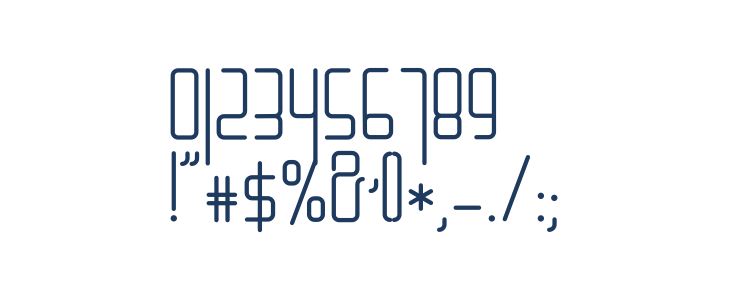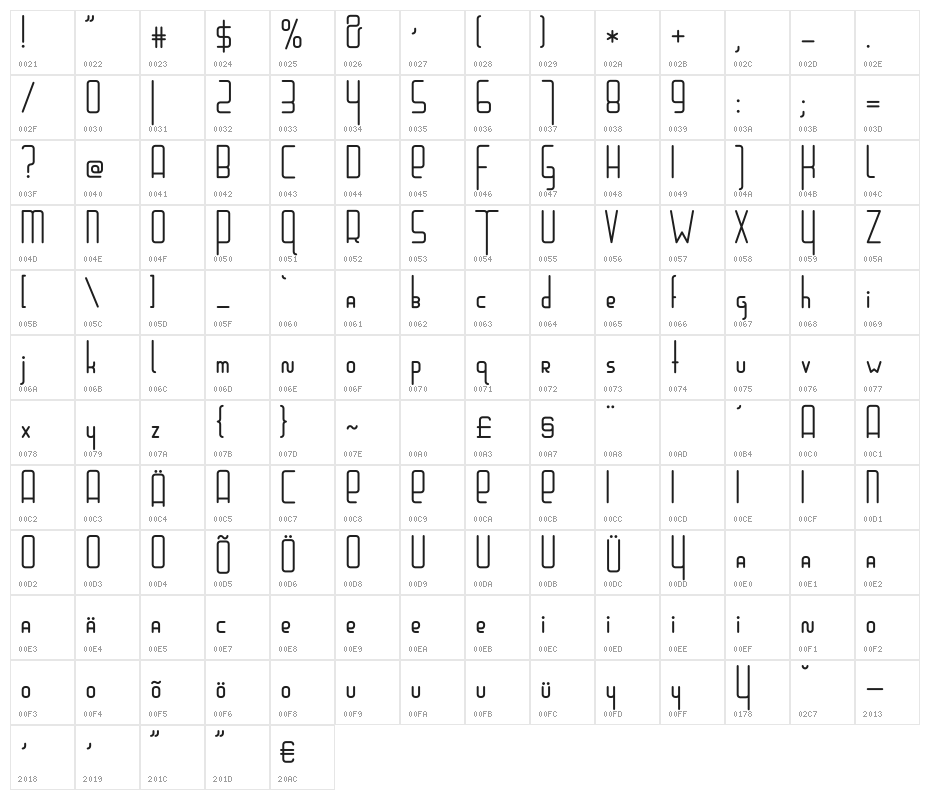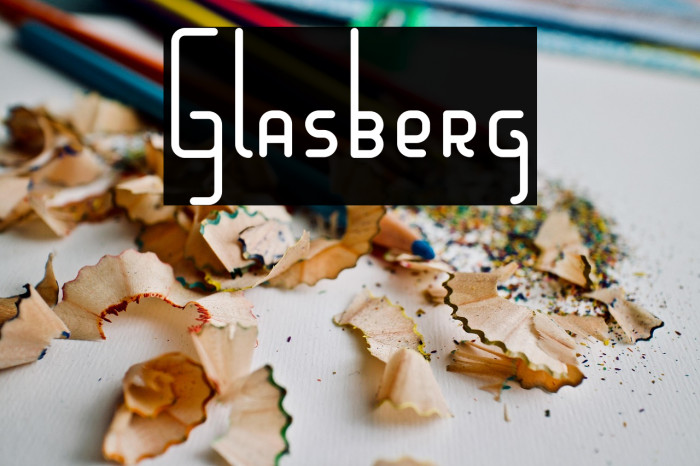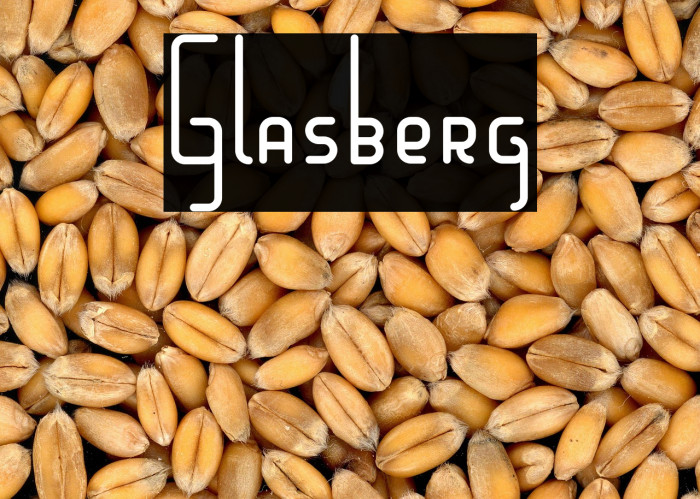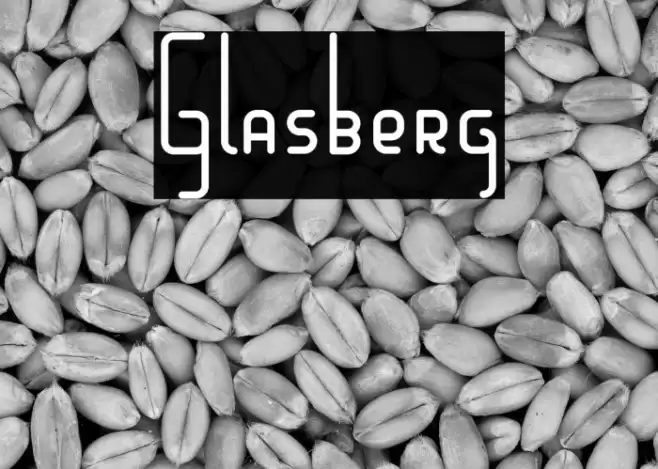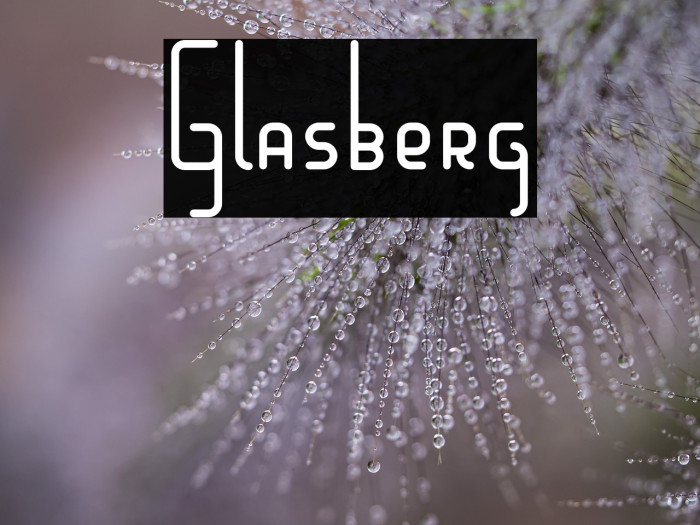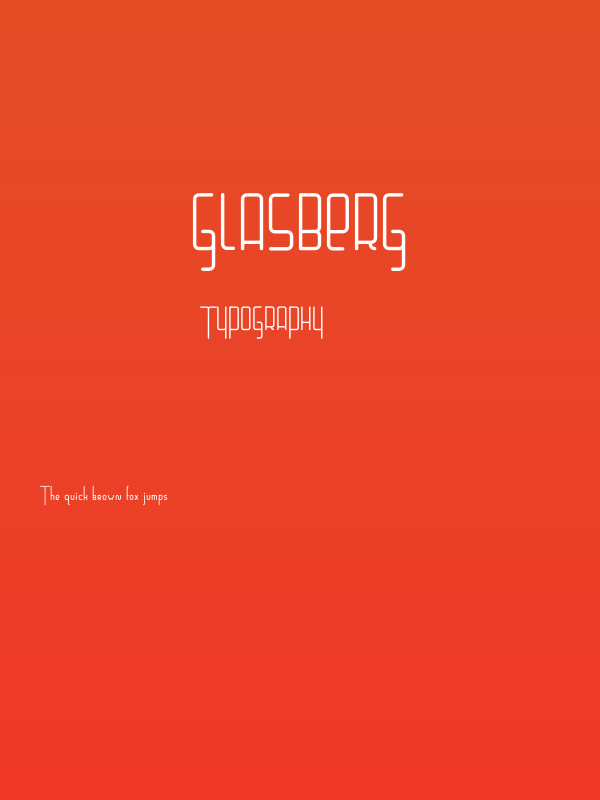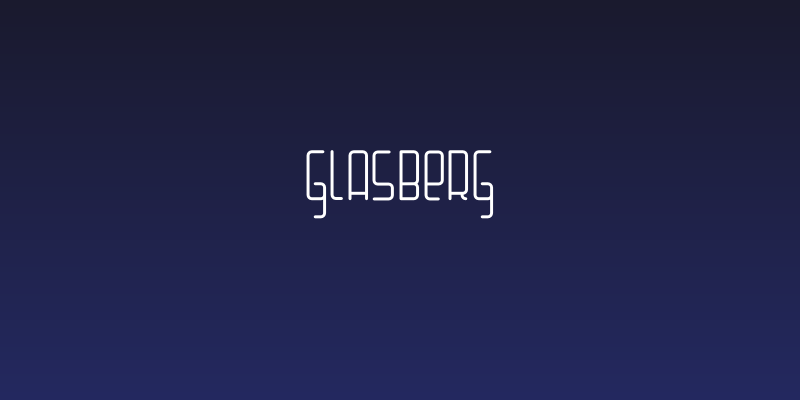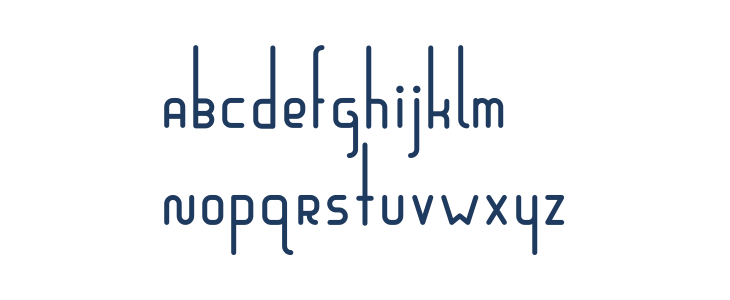
Glasberg Font
Glasberg Description
This font features a modern, geometric design with a unique blend of rounded and straight edges. The characters are tall and narrow, giving it a sleek and contemporary appearance. The uppercase letters are particularly elongated, while the lowercase letters maintain a consistent height, creating a harmonious balance. The numerals and special characters follow the same design principles, ensuring uniformity across the font. The overall style is minimalistic, making it suitable for projects that require a clean and futuristic look.